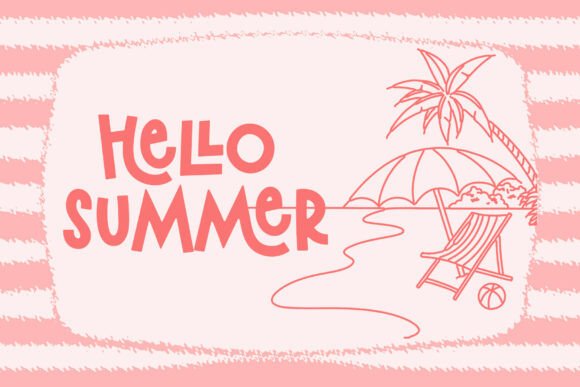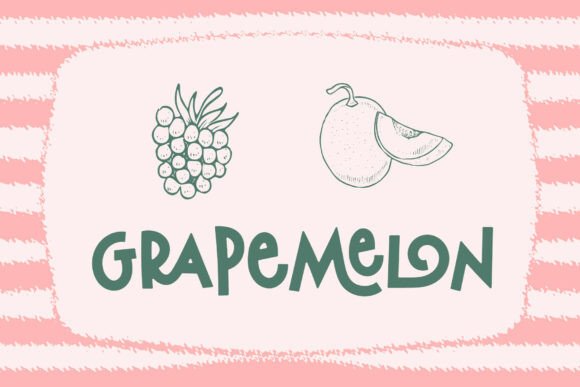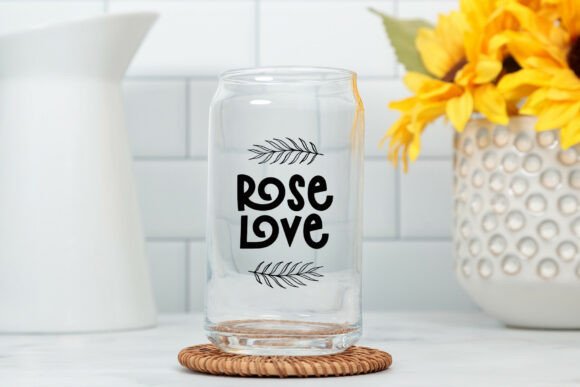
Introduction to Holiday Snow Font
As you sit down to start your next creative project, the blank page can sometimes feel daunting. But what if you could instantly infuse your design with a dash of holiday magic? That’s where the Holiday Snow Font comes in – a playful, all-caps display typeface that’s bursting with warmth and personality. With its rounded letterforms and sweet, swirling ligatures, this font is the perfect way to add a touch of whimsy to your design.
Whether you’re working on a children’s book, a holiday greeting card, or a fun product packaging design, the Holiday Snow Font is a valuable resource that’s sure to bring a smile to your face and your viewer’s face as well. Its high-quality design and transparent background make it a seamless addition to any creative project, while its free download option means you can access it without breaking the bank.
- Unique winter-themed design perfect for creative projects like greeting cards, invitations, and social media posts.
- Perfect for adding a touch of festive magic to your design projects, from holiday-themed advertisements to winter wonderland-inspired artwork.
Honest Review: Holiday Snow Font
I recently stumbled upon the Holiday Snow Font, and I must say it’s a great addition to any designer’s toolkit. As a creative professional, I’m always on the lookout for high-quality design resources to elevate my projects.
What works well: ✨ This font is perfect for any winter-themed project, especially those that require a festive and whimsical touch. The clean lines and delicate details make it a great choice for a variety of applications, from greeting cards to web design.
The font also comes with a transparent background, which is always a bonus when working on complex design projects. This feature allows for seamless layering and easy customization.
Overall, I’m impressed with the Holiday Snow Font’s quality and versatility. It’s a great resource for designers who want to add a touch of winter wonder to their creative projects.
Experiment with different font sizes and styles to create a unique look. Combine Holiday Snow Font with other fonts for a visually appealing design. Use it to create a cohesive brand identity or to add a touch of holiday magic to your designs.
Use Holiday Snow Font for holiday-themed designs, such as Christmas cards, gift tags, or invitations. You can also use it to create a winter wonderland-themed design for a blog post or social media graphic. With its high-quality design and transparent background, the possibilities are endless.